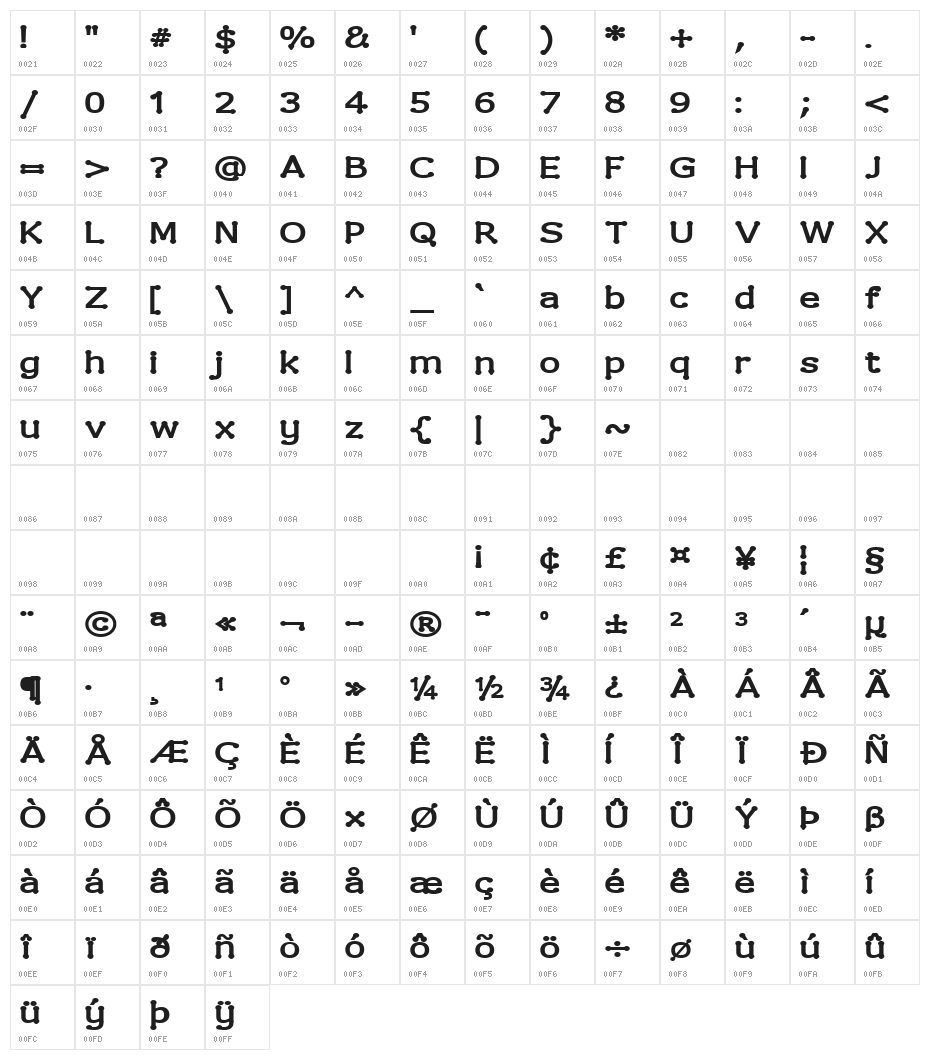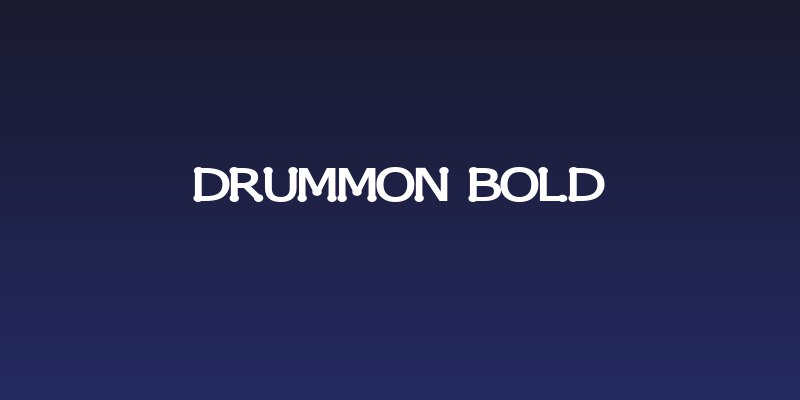
Drummon Bold Font
Drummon Bold Description
This font features a bold and playful design with rounded edges and a distinctive dot-like embellishment at the end of each stroke. The characters are uniformly thick, giving it a robust and friendly appearance. The uppercase and lowercase letters maintain a consistent style, with the lowercase letters slightly more rounded. The numerals are equally bold, ensuring readability and consistency with the overall design. Special characters are designed to match the playful and bold aesthetic, making this font suitable for creative and informal applications.
| Overall Style | Playful, Modern |
| Proposed Projects | Ideal for children's books, playful branding, posters, and creative design projects. |